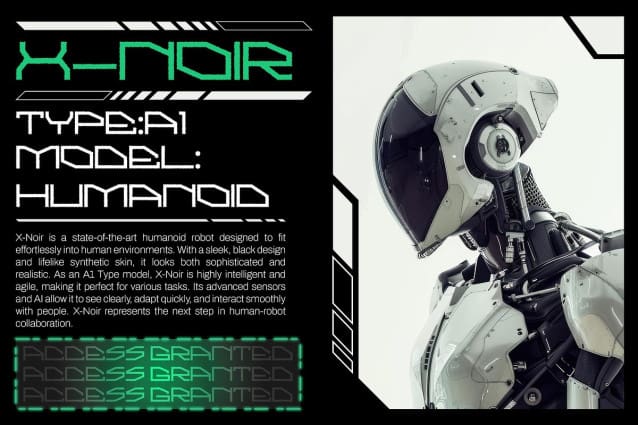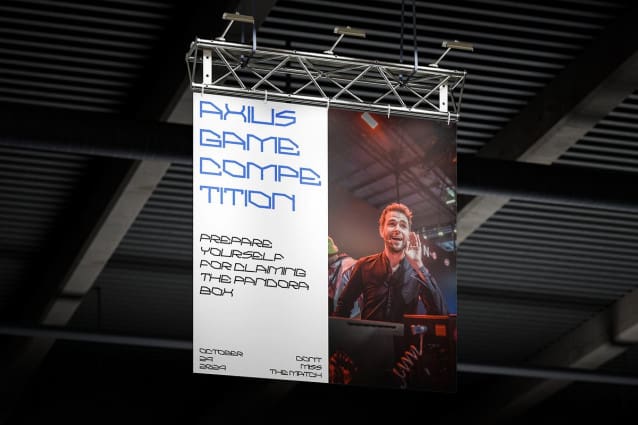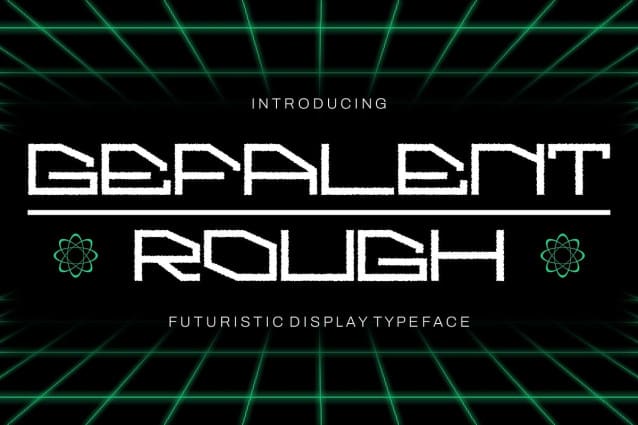
Gefalent Rough Font
Gefalent Rough Font is a modern display font that combines futuristic geometric design with a rough texture, creating a striking blend of sleek precision and rugged character. The sharp, clean lines are contrasted by distressed edges, adding a layer of grit to its otherwise refined appearance.
Dynamic and Edgy for Bold Visuals This font’s unique combination of geometric precision and rough texture makes it ideal for bold, contemporary designs. Gefalent Rough brings a dynamic and edgy look to sci-fi themes, branding, and other creative projects that need to stand out with a touch of sophistication and grit.
Perfect for Contemporary Branding and Sci-Fi Themes Gefalent Rough’s futuristic design and rugged texture make it a perfect fit for modern branding, especially in tech and sci-fi-oriented projects. Its distinctive style ensures a bold visual impact, ideal for creating memorable and powerful designs.
Versatile for Gritty and Sophisticated Designs Whether you’re working on branding, promotional materials, or futuristic themes, Gefalent Rough offers versatility with its unique blend of sleek design and rugged texture. It adds a bold, edgy aesthetic to any project, ensuring your visuals are both striking and sophisticated.